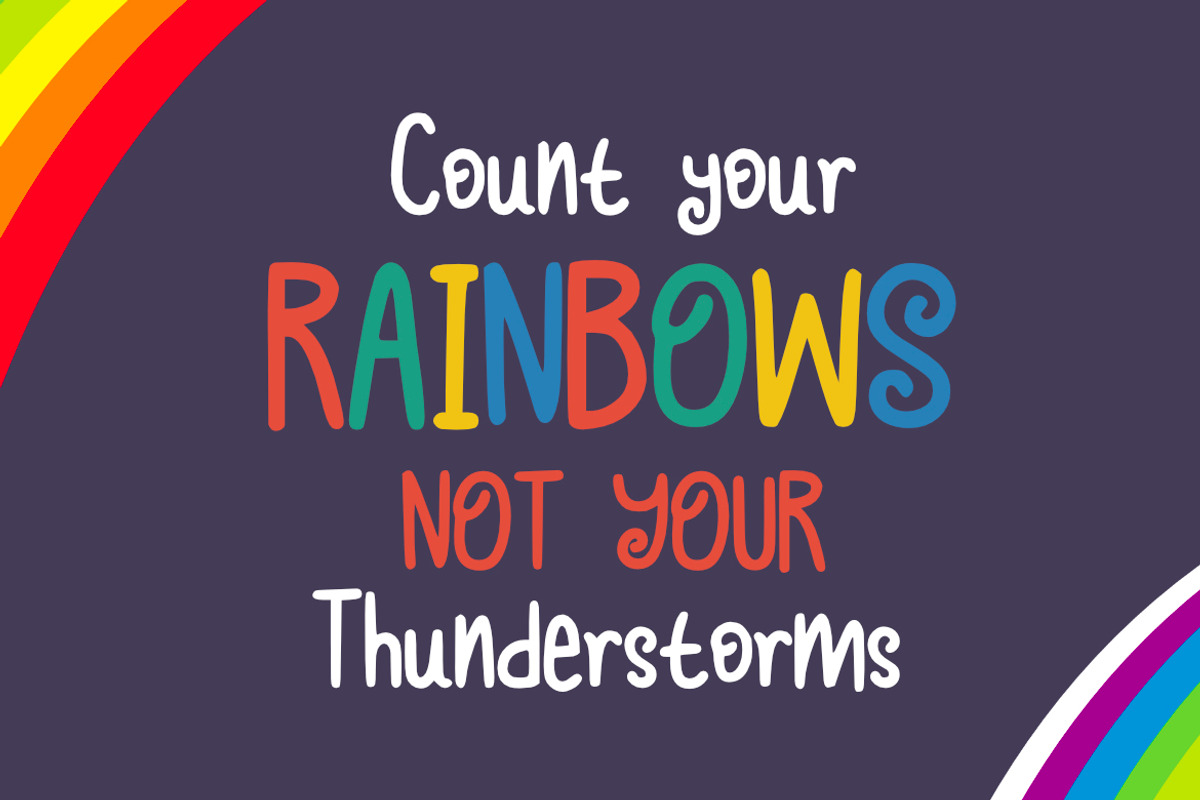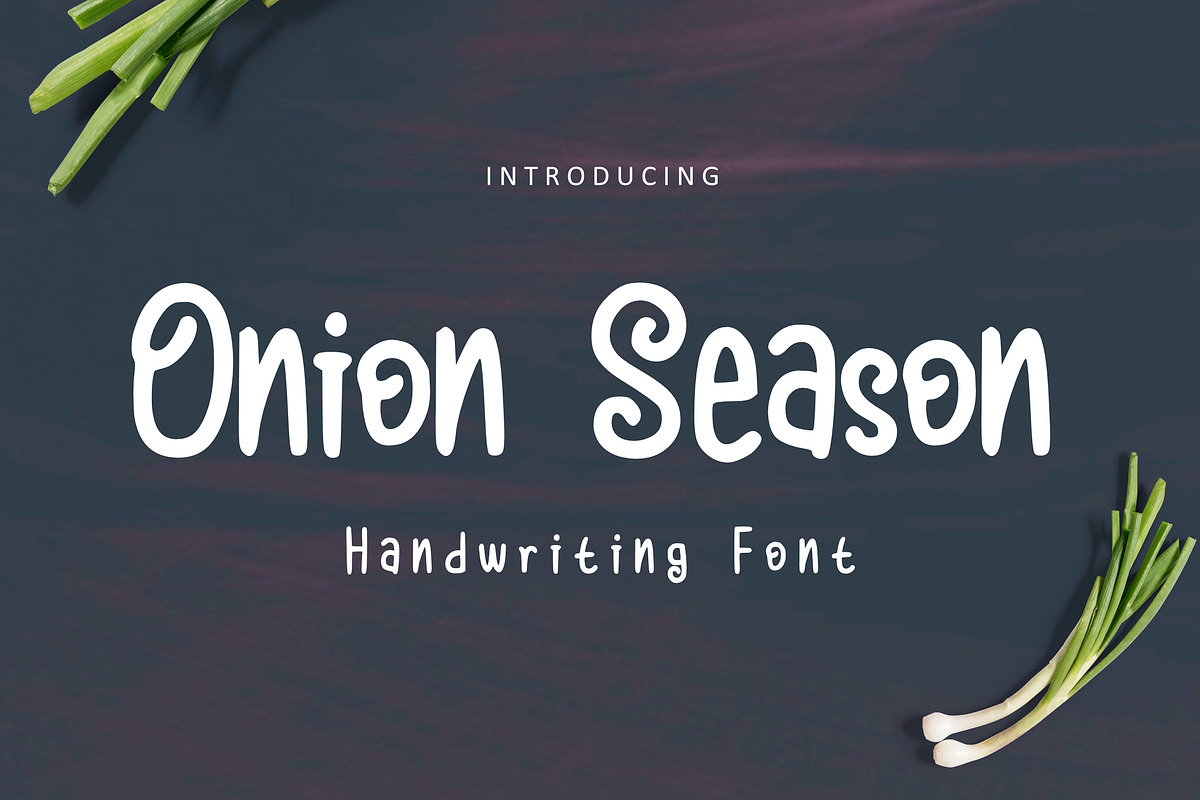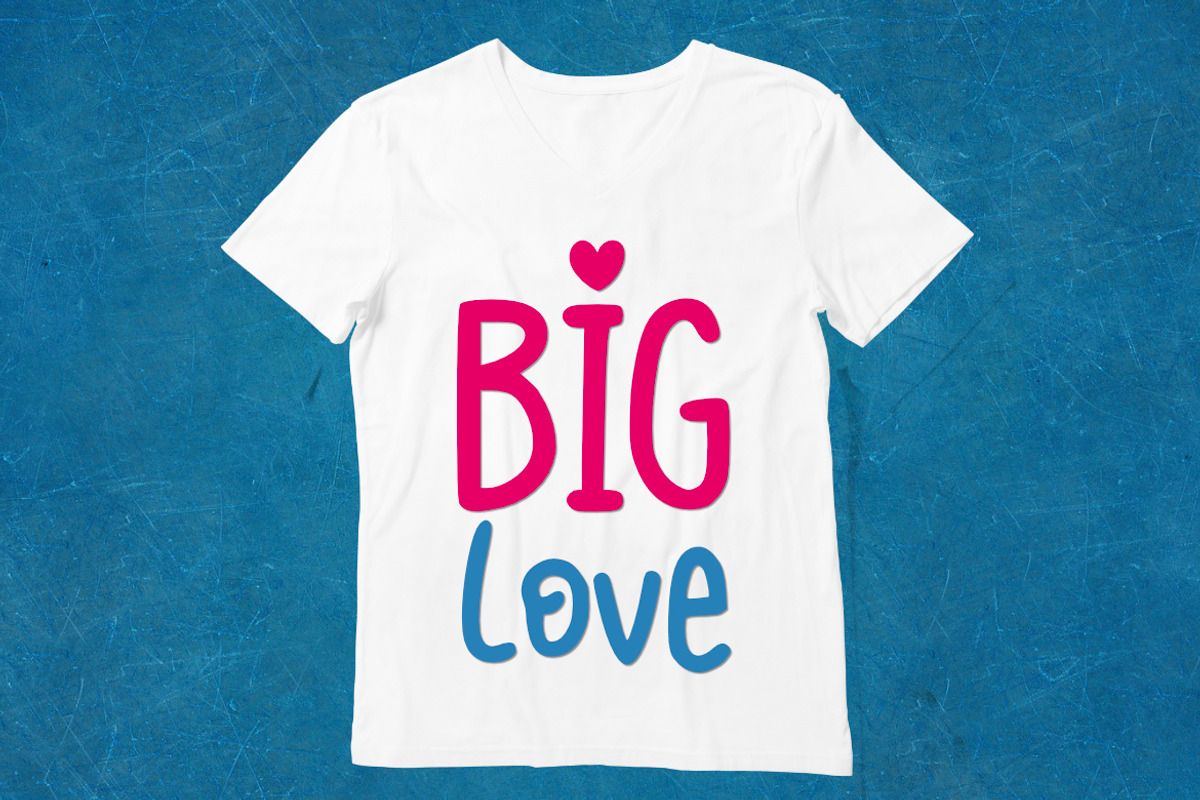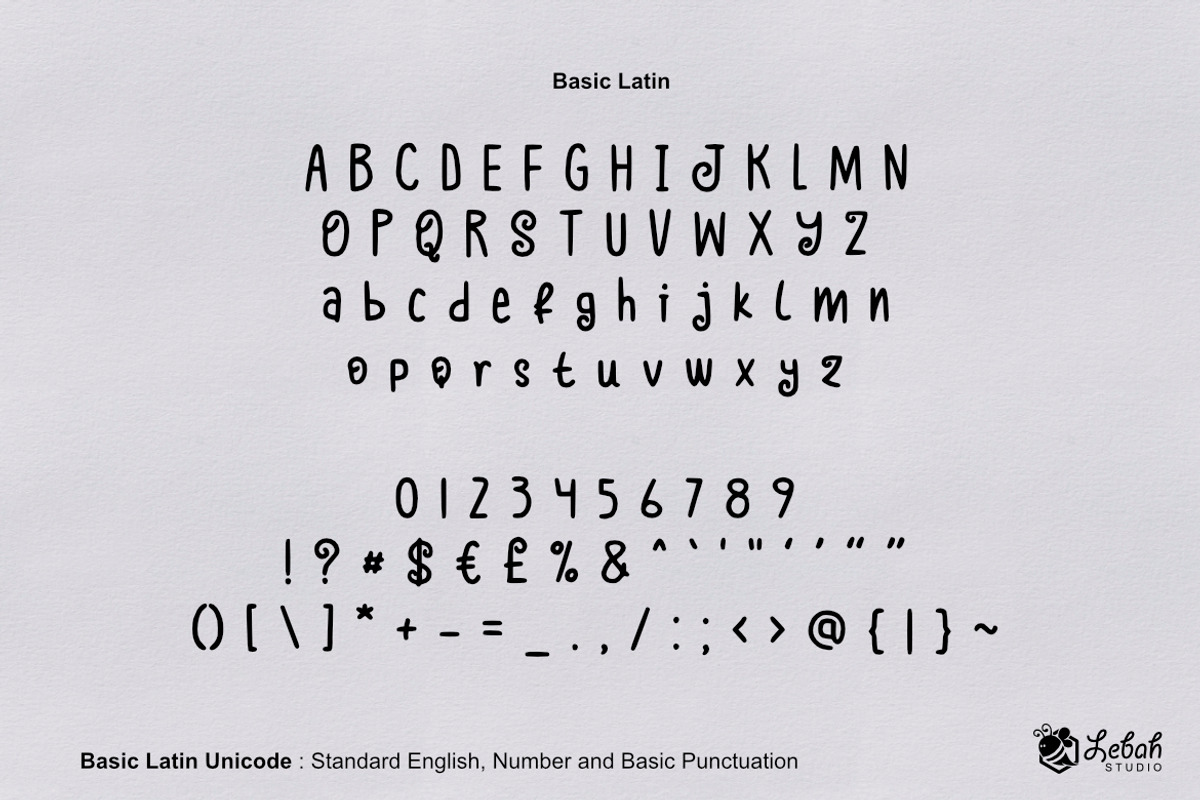
Onion Season Font
Cute font , suitable for many project , quotes, logo , doodle, heading , title etc.
Why Onion Season Font is worth a look
Onion Season Font by ArdiDesigns fits naturally into Branding, posters, packaging, typography.